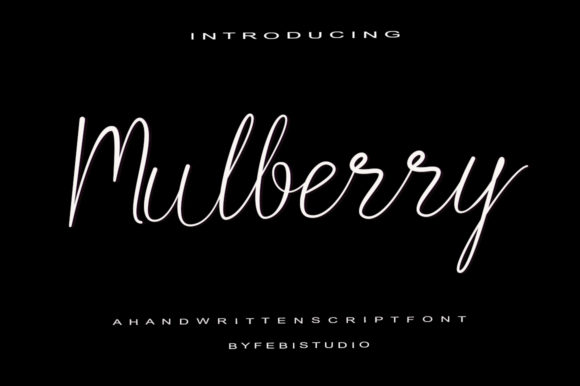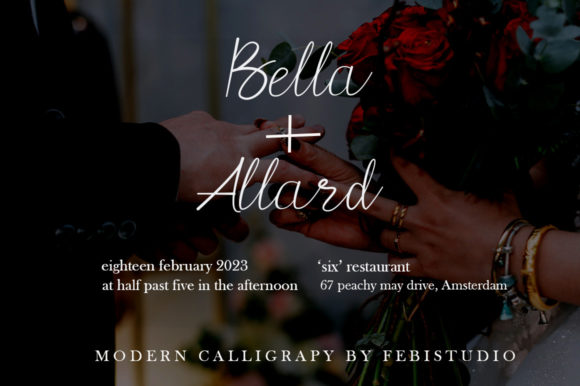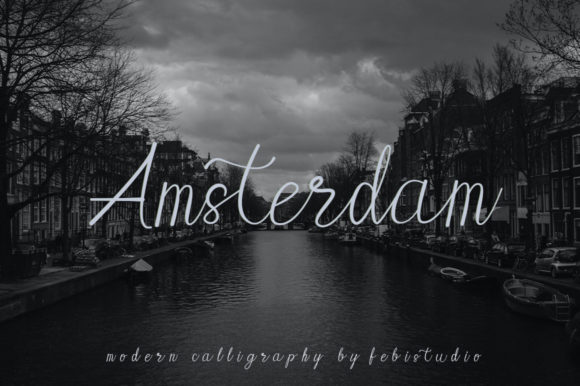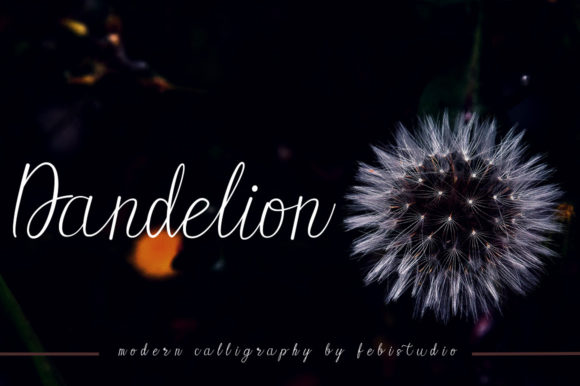
About Mulberry Font
Mulberry is a free-flowing script font created for packaging products, invitation cards, flyers, mockups, event posters, and anything else that requires high-quality typography. It has a beautiful and balanced character, that fits well with the large design pool.